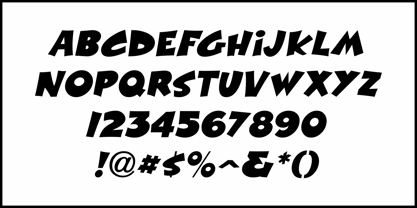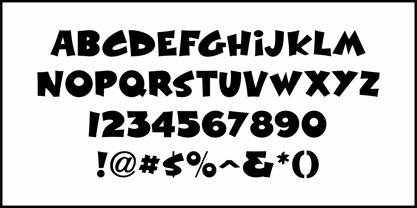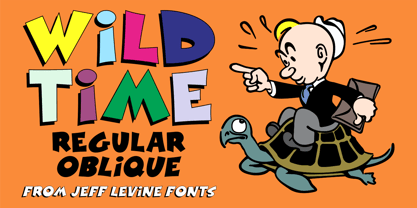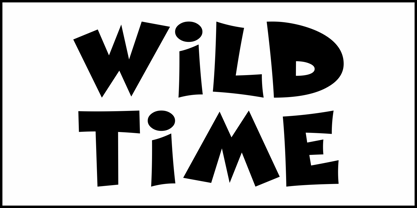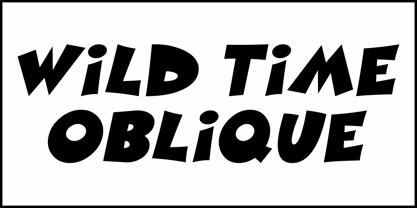
Wild Time JNL
by Jeff Levine
An ad in the 1955 edition of Broadcasting Telecasting for the Tobacco Network (an association of television stations in tobacco growing areas) featured some wildly free-form hand lettering.
This served as the inspiration for Wild Time JNL, and is available in both regular and oblique versions.